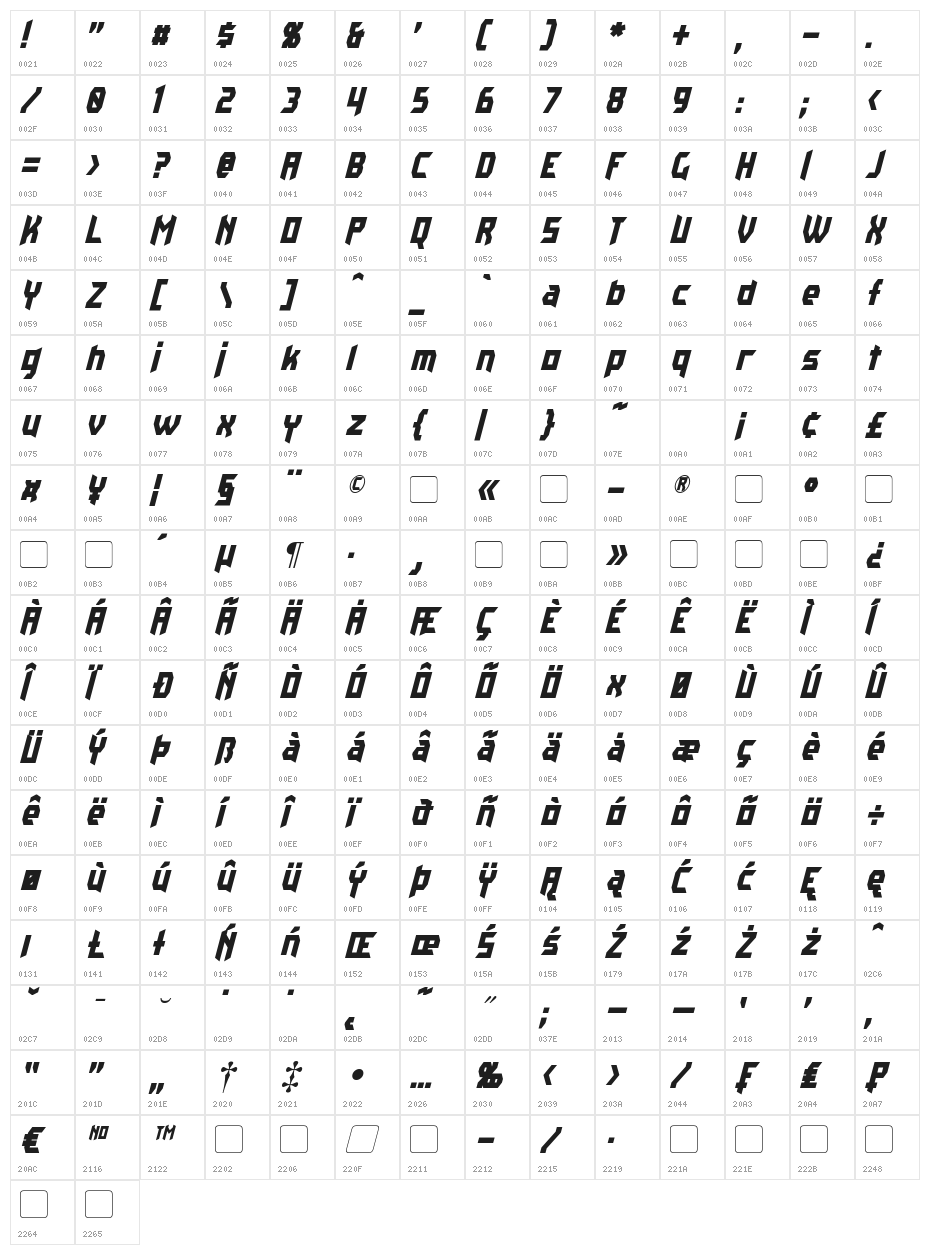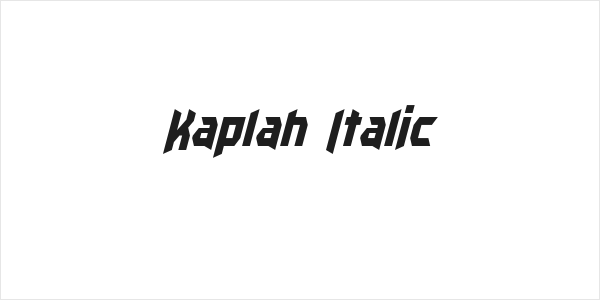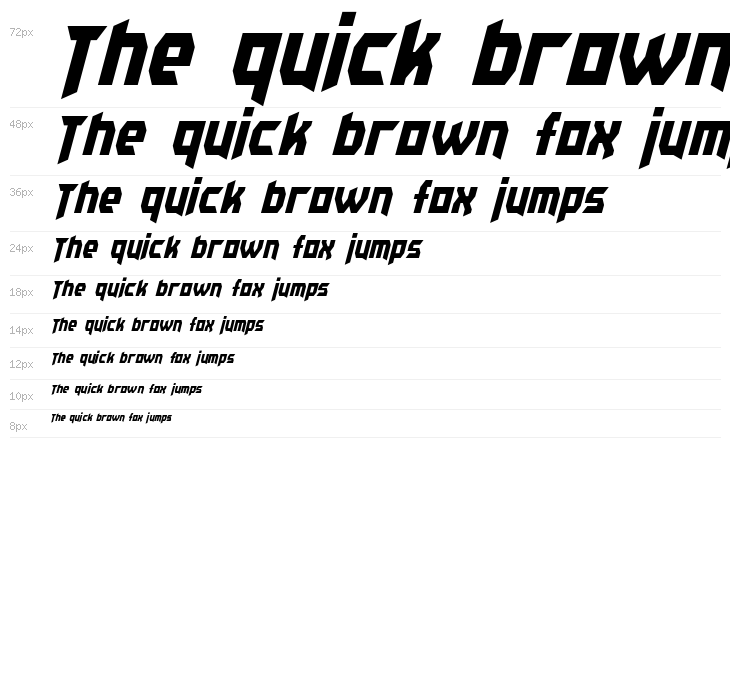
Kaplah Italic Font
Kaplah Italic Description
This font exhibits a bold and dynamic style with a distinct italic slant, giving it a sense of motion and energy. The characters are angular and sharp, featuring a futuristic and aggressive design. The uppercase and lowercase letters maintain a consistent style, with the numbers and special characters following suit. The overall appearance is striking and modern, making it suitable for attention-grabbing designs.
| Overall Style | Futuristic, Dynamic |
| Proposed Projects | Ideal for sci-fi themed posters, video game titles, and edgy branding projects. |